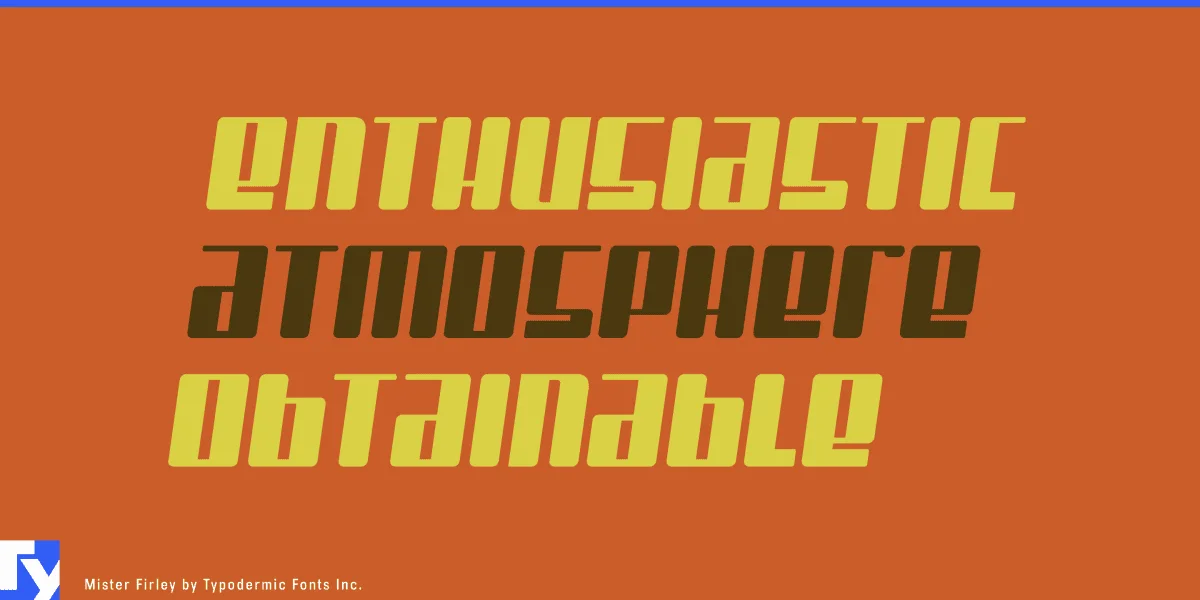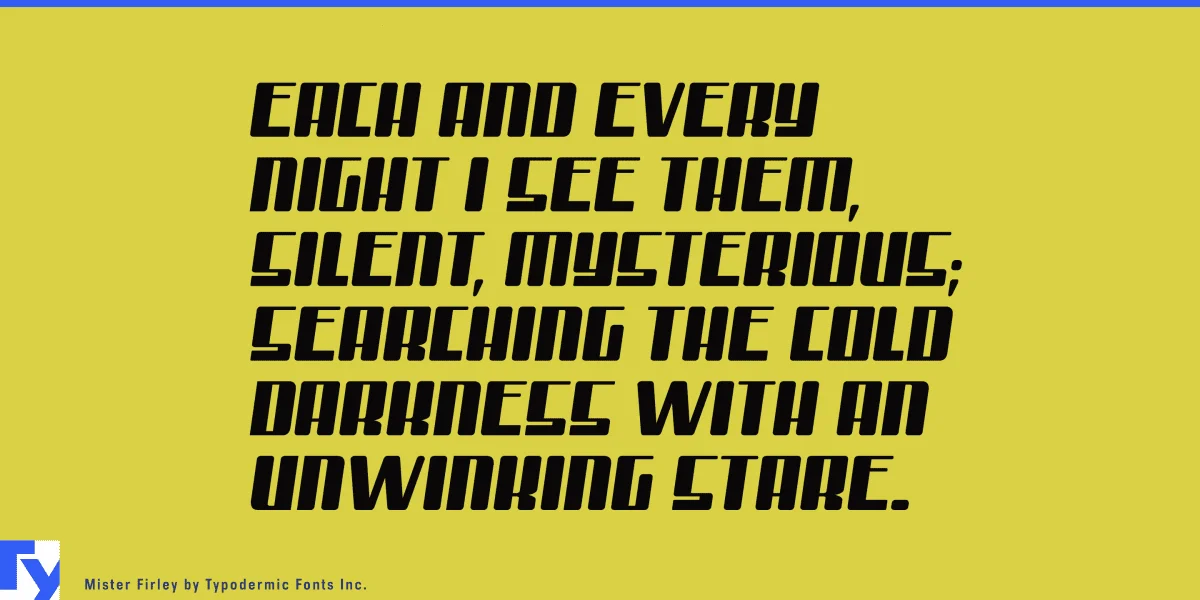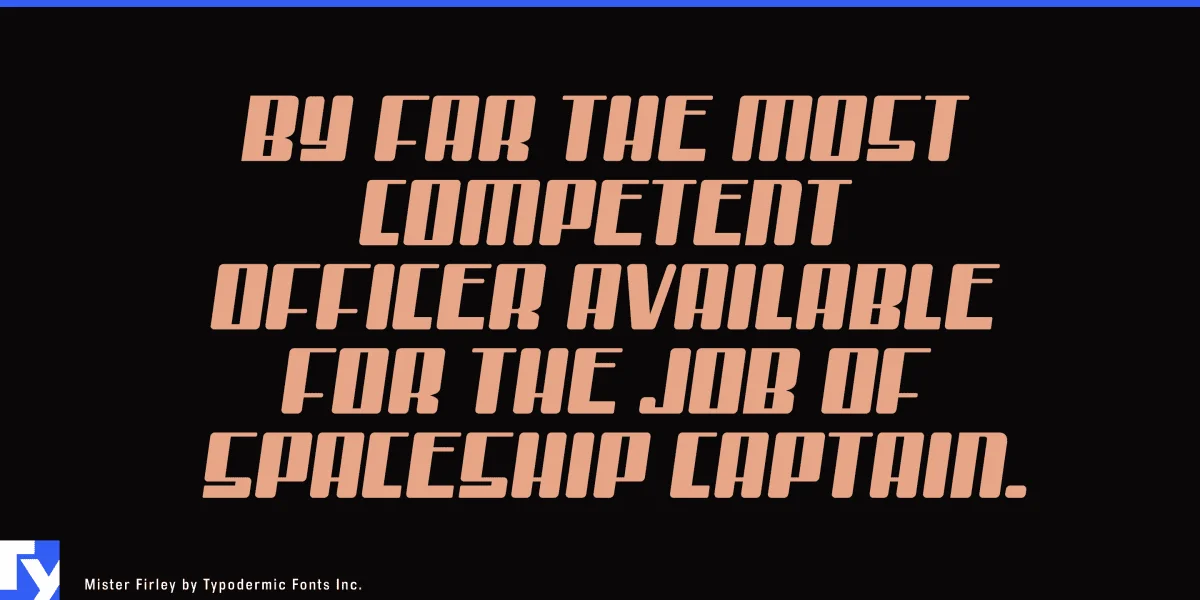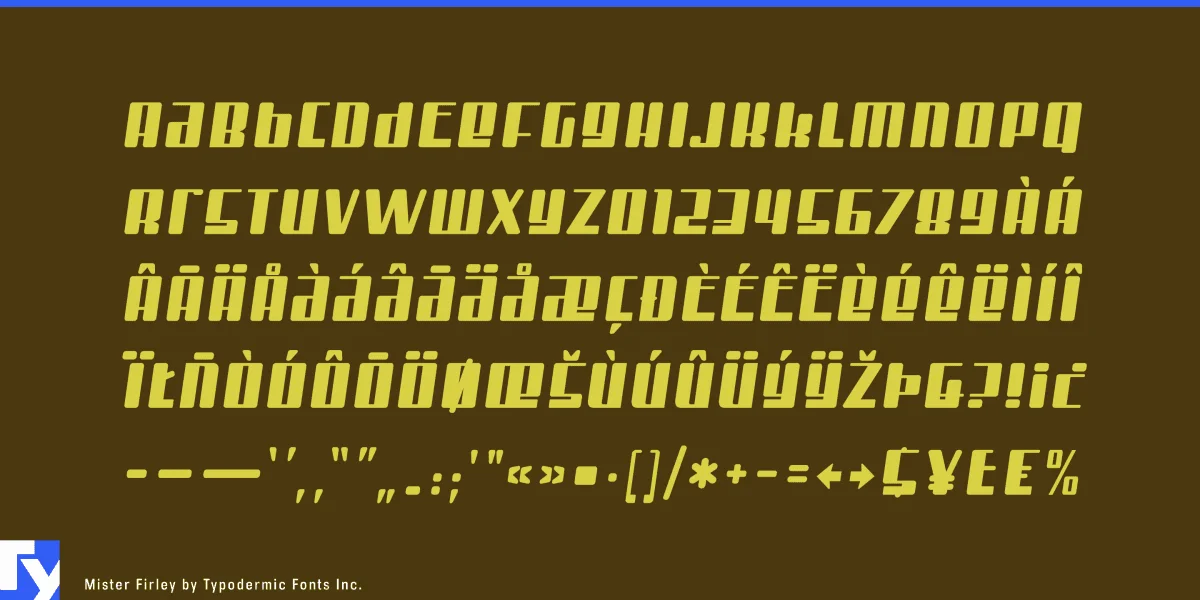
Mister Firley is a headline yeller in the modern industrial style. Peculiar techno letterforms will add a Y2K flavor to your message. Some Latin-based European writing systems are supported, including the following languages. Afaan Oromo, Afar, Afrikaans, Albanian, Alsatian, Aymara, Basque, Bemba, Bikol, Breton, Cape Verdean, Creole, Catalan, Cebuano, Chamorro, Chavacano, Danish, Dawan, Dholuo, Dutch, English, Estonian, Faroese, Fijian, Filipino, Finnish, French, Frisian, Friulian, Galician, Genoese, German, Guadeloupean Creole, Haitian Creole, Hiligaynon, Icelandic, Ilocano, Indonesian, Irish, Italian, Jamaican, Kaqchikel, Kikongo, Kinyarwanda, Kirundi, Lombard, Low Saxon, Luxembourgish, Makhuwa, Malay, Ndebele, Neapolitan, Norwegian, Novial, Occitan, Papiamento, Piedmontese, Portuguese, Quechua, Rarotongan, Romansh, Sango, Saramaccan, Sardinian, Scottish Gaelic, Shona, Sicilian, Silesian, Slovak, Slovenian, Somali, Sotho, Spanish, Swahili, Swazi, Swedish, Tagalog, Tetum, Tshiluba, Tsonga, Tswana, Tumbuka, Uzbek (Latin), Venetian, Võro, Walloon, Waray-Waray, Wayuu, Xhosa, Yapese, Zapotec Zulu and Zuni.